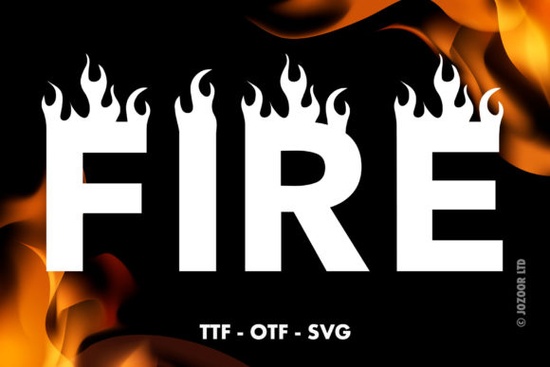
Looking for a typeface that brings energy and intensity to your designs? Fire Font is a decorative typeface built for bold, eye-catching projects. Whether you're designing t-shirts, posters, social media graphics, or book covers, this font delivers a dramatic look that grabs attention right away.
What Makes Fire Font Stand Out from Other Decorative Fonts?
Most decorative fonts try to do too much and end up looking cluttered. Fire Font takes a different approach. It has sharp, flame-inspired letterforms that feel energetic without being unreadable. The characters have a natural flow, with edges and shapes that mimic the movement of real fire.
What makes it practical is that it still works at different sizes. You can use it for a large poster headline and it looks powerful. Scale it down for a smaller design element and it still holds its shape. That kind of versatility is hard to find in decorative typefaces.
What Can You Use Fire Font For?
This font works well across a surprisingly wide range of projects. Here are some of the most common uses:
- T-shirt designs – Perfect for bold, statement graphics on print-on-demand apparel
- Poster and flyer layouts – Great for event promotions, music posters, and sale announcements
- Book covers – Especially for thriller, action, or fantasy genres
- Social media graphics – Instagram posts, YouTube thumbnails, and story templates
- Digital invitations – Party invites, Halloween themes, or anything with a bold vibe
- Crafting projects – Vinyl decals, stickers, and heat-transfer designs
- Presentations – Title slides that need to make an immediate impact
For crafters who sell on Etsy or run a small print-on-demand shop, having a font like this in your toolkit means you always have a ready option when a customer asks for something fierce and attention-grabbing.
Is Fire Font Easy to Work With?
The character set includes standard letters, numbers, and basic punctuation. It's designed as a display font, so it's meant for headlines and short text, not long paragraphs. That's typical for decorative typefaces and actually makes it easier to use you know exactly where it fits best.
How Does It Compare to Other Bold or Script Fonts?
Fire Font fills a specific niche. It's not a brush script or a clean sans-serif it's a decorative font with a strong, fiery personality. If you're working on a project that needs warmth, intensity, or a rebellious edge, this is a better fit than a standard bold font.
That said, it pairs well with simpler fonts for body text. Try combining it with a clean sans-serif for contrast. The decorative element stays in the spotlight while the supporting text stays readable.
Who Is This Font Best For?
Fire Font is a solid choice for:
- Print-on-demand sellers who need fresh, bold designs regularly
- Graphic designers working on event posters, album art, or branding
- Crafters using Cricut or Silhouette for vinyl and heat-transfer projects
- Small business owners creating their own marketing materials
- Content creators who want standout thumbnails and social graphics
It's especially useful if you design for niches like sports, fitness, motorsports, gaming, or anything with a high-energy audience.